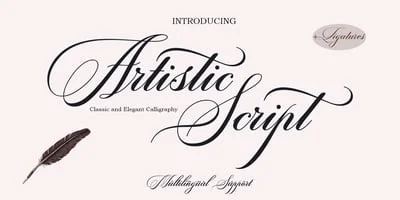
Artistic Script
Artistic Script Font
Artistic Script Font is perfect for art gallery branding, creative studio signage, handmade craft packaging, artistic workshop materials, fine arts education programs, and elegant creative portfolio designs.
Artistic Script Font is exciting because it captures the flowing creativity and expressive beauty of artistic handwriting, delivering an elegantly crafted typeface that embodies creative vision, artistic mastery, and the timeless appeal of handwritten artistic expression.
The Artistic Script Font family includes creative variations: Artistic Script Regular, Artistic Script Bold, flowing alternates, and decorative elements that enhance the font's artistic and creatively expressive character.
Express creative vision with Artistic Script Font, an elegantly crafted typeface that brings artistic sophistication and creative elegance to your most inspiring design projects. This expressive font excels in creating memorable branding for art studios, creative agencies, artisan businesses, and cultural organizations that celebrate the transformative power and emotional depth of artistic expression and creative craftsmanship. The beautifully designed letterforms feature flowing curves and artistic proportions that simulate the natural grace of skilled calligraphy while ensuring excellent readability across all creative and artistic applications. Perfect for art exhibition catalogs, creative workshop promotions, artisan craft labels, and artistic education materials that need to convey creative excellence and artistic sophistication, this font connects with artists and creative professionals who value expressive beauty and artistic authenticity. Each character flows with creative grace, making every artistic message feel like a masterpiece of visual communication that honors the incredible talent and dedication of creative professionals. Artistic Script Font transforms creative communications into inspiring works of art that celebrate artistic vision while encouraging audiences to appreciate the beauty and emotional power that artistic expression brings to human experience and cultural enrichment.